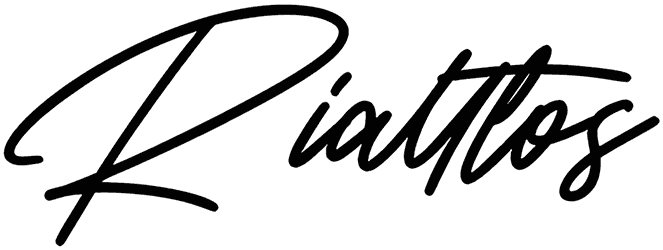
Rialltos Font
The first step in designing posters, logos, book covers, magazines, or web pages is choosing a suitable font that must be cohesive with the content of your work.
In this way, a script font such as Rialltos would save your time and energy. Since this fast handwritten font comes in a cursive style, you can impress even the toughest ones by sharing a sense of personalization, dynamic, softness, or precision. Just bear in mind that numbers aren’t included in this artwork.